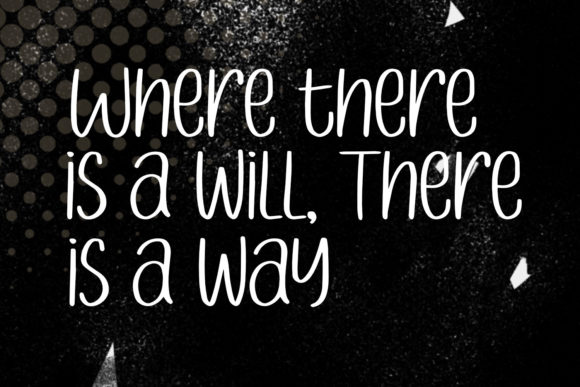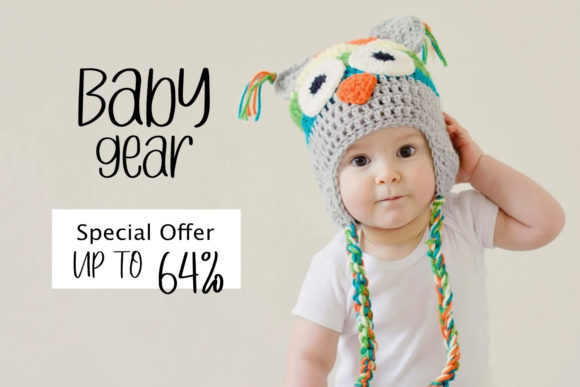
About Smother Spoon Font
Smother Spoon is a sweet and friendly handwritten font. Its natural and unique style makes it incredibly fitting to a large pool of designs. The only limit is your imagination!